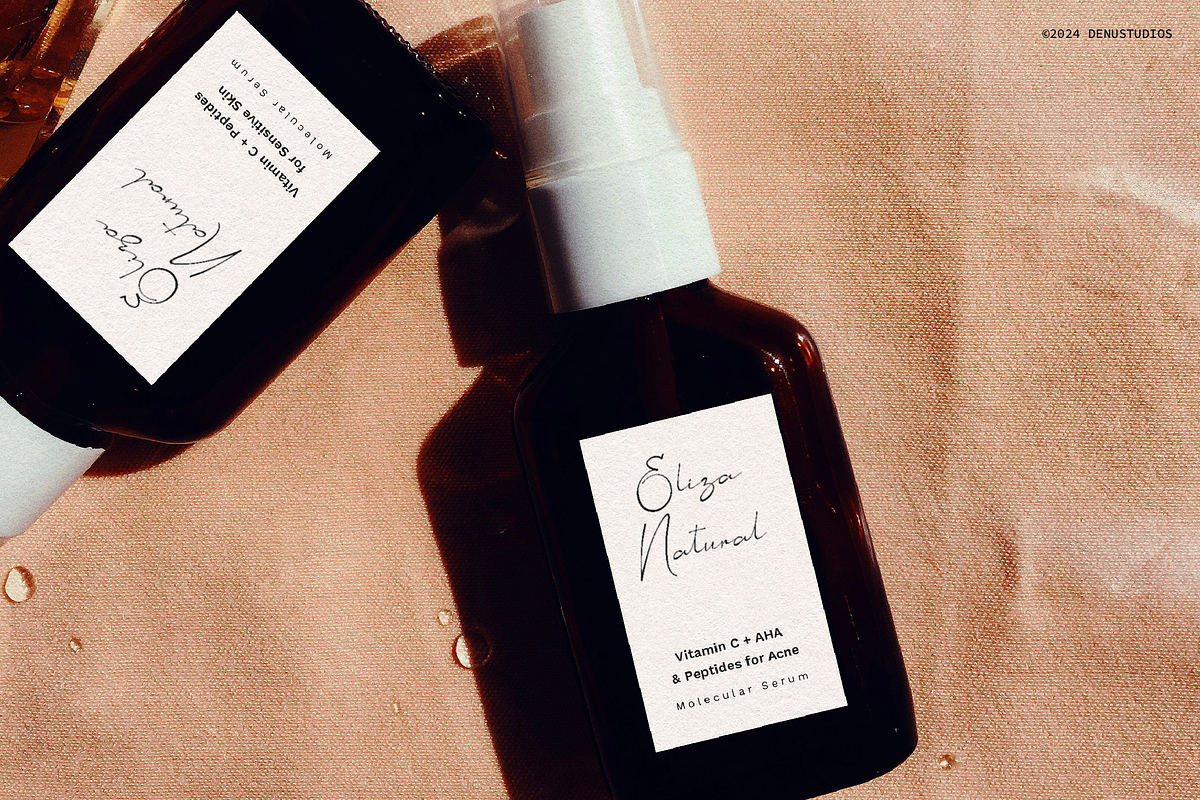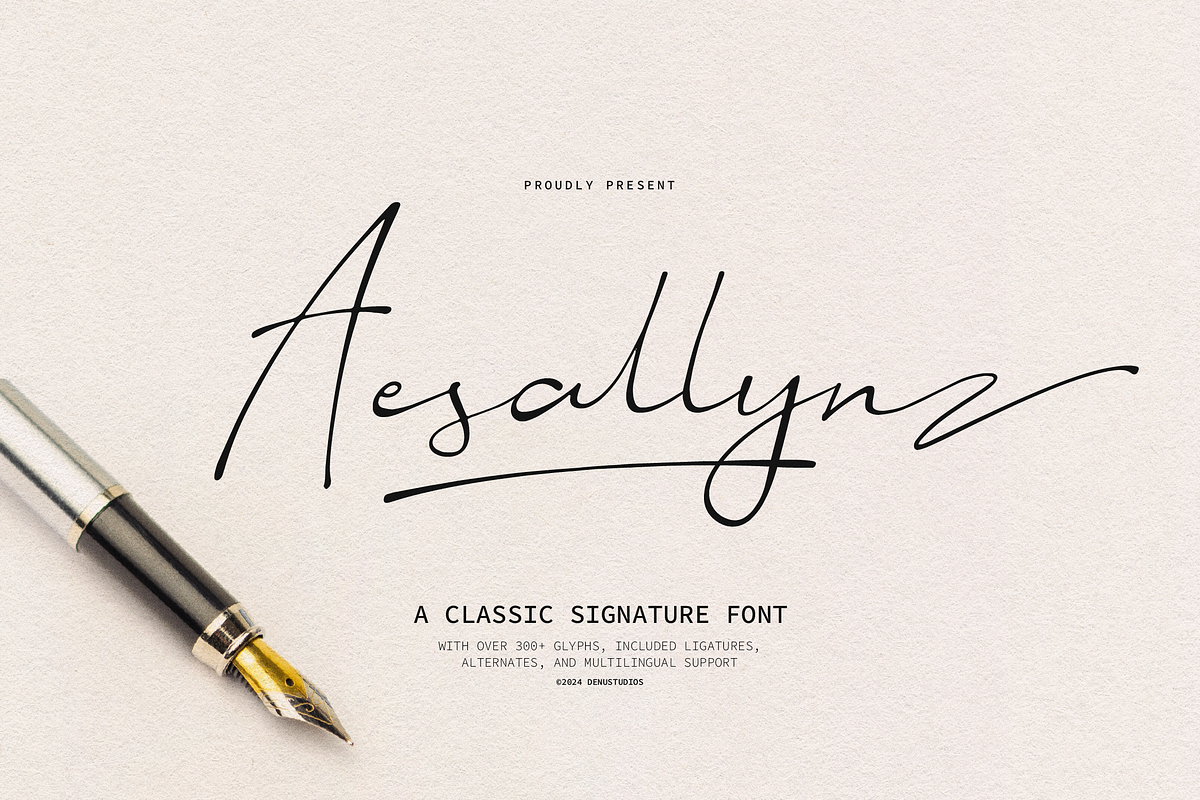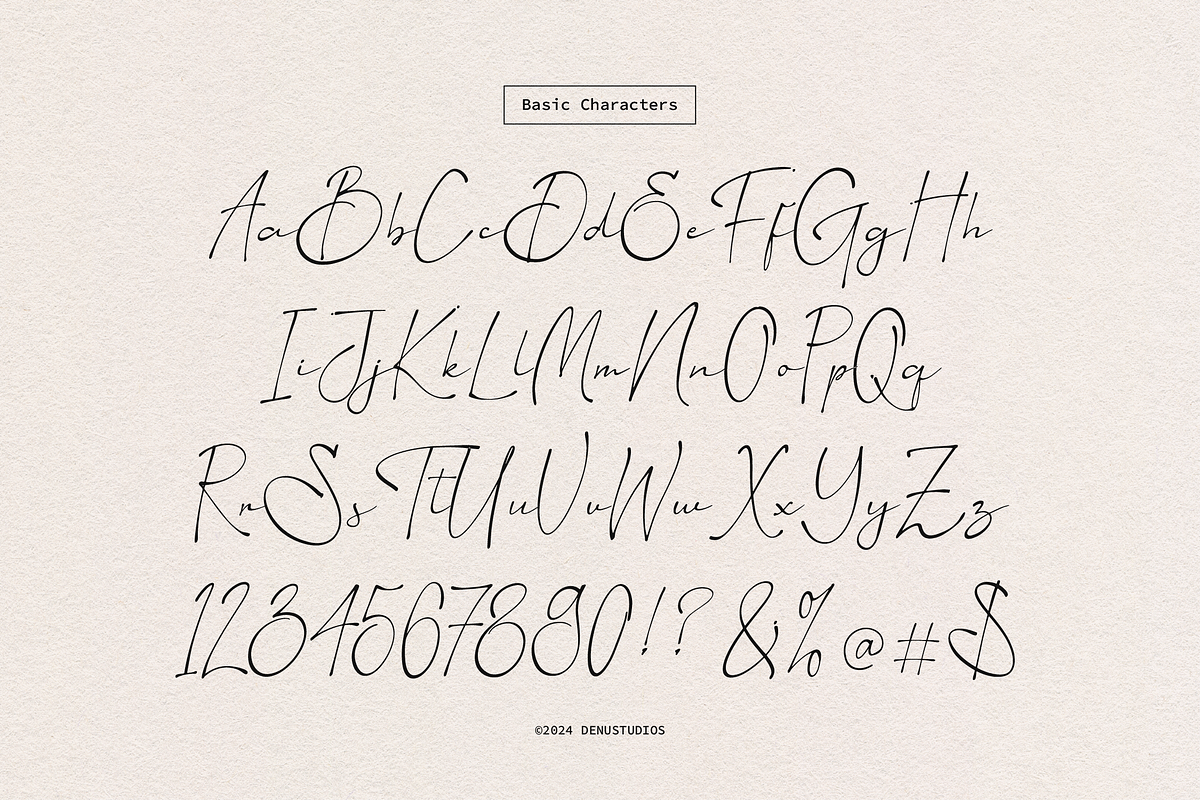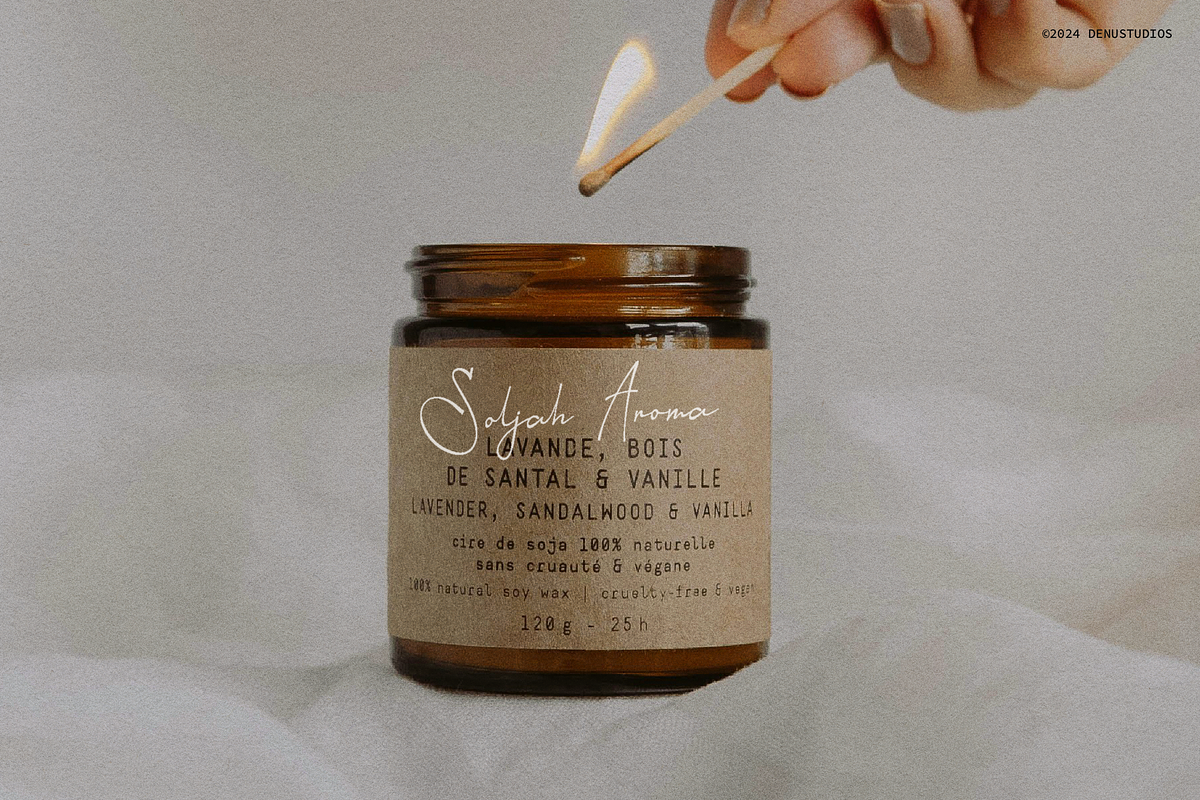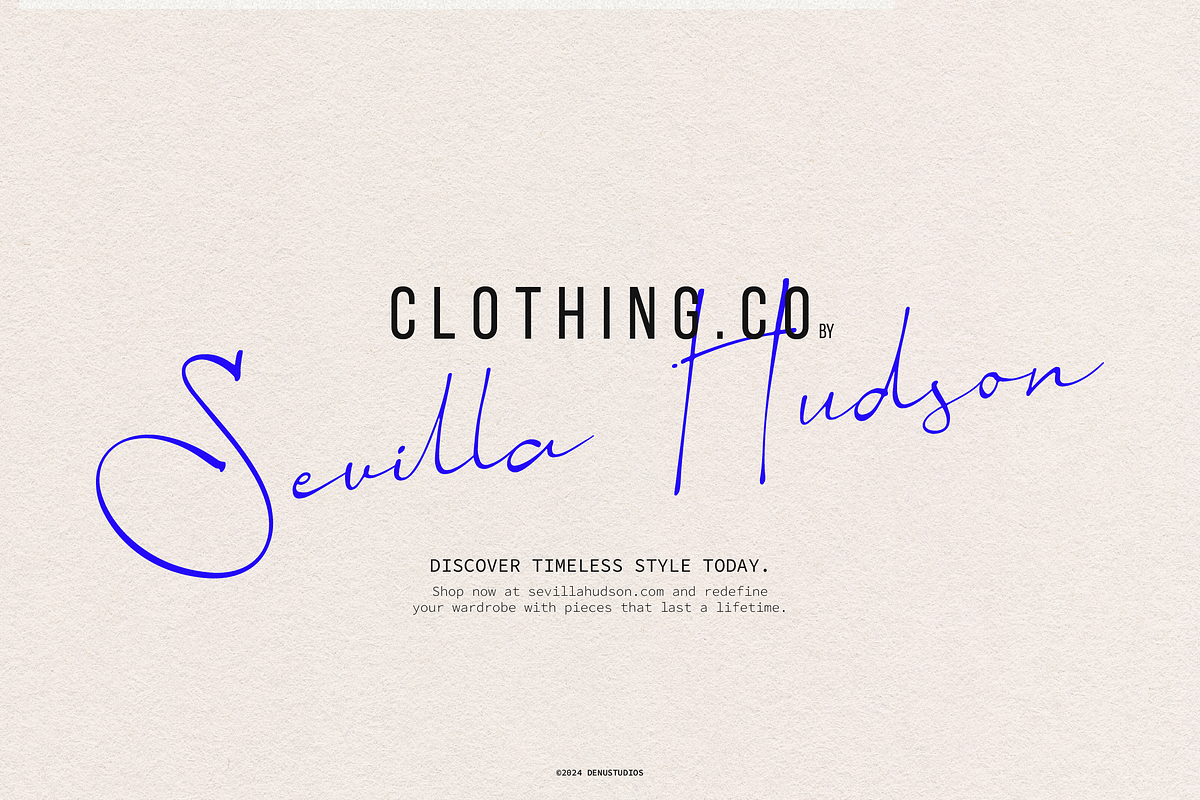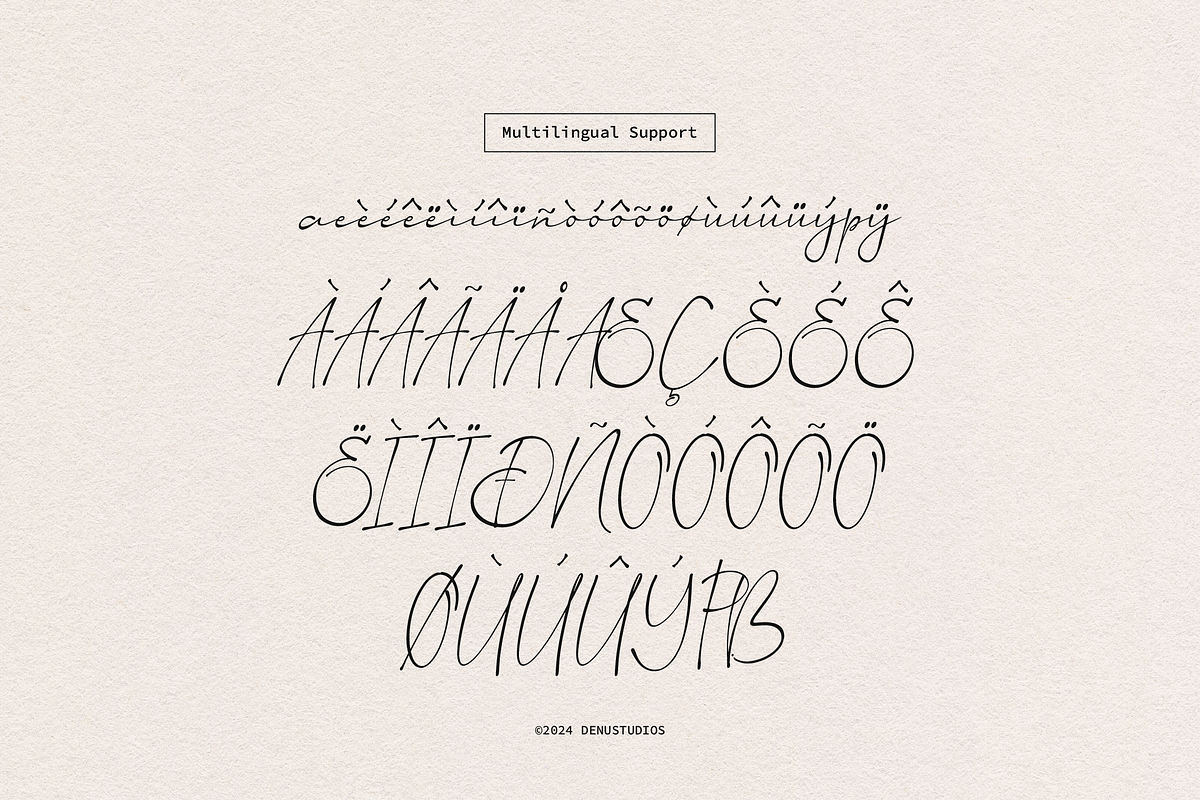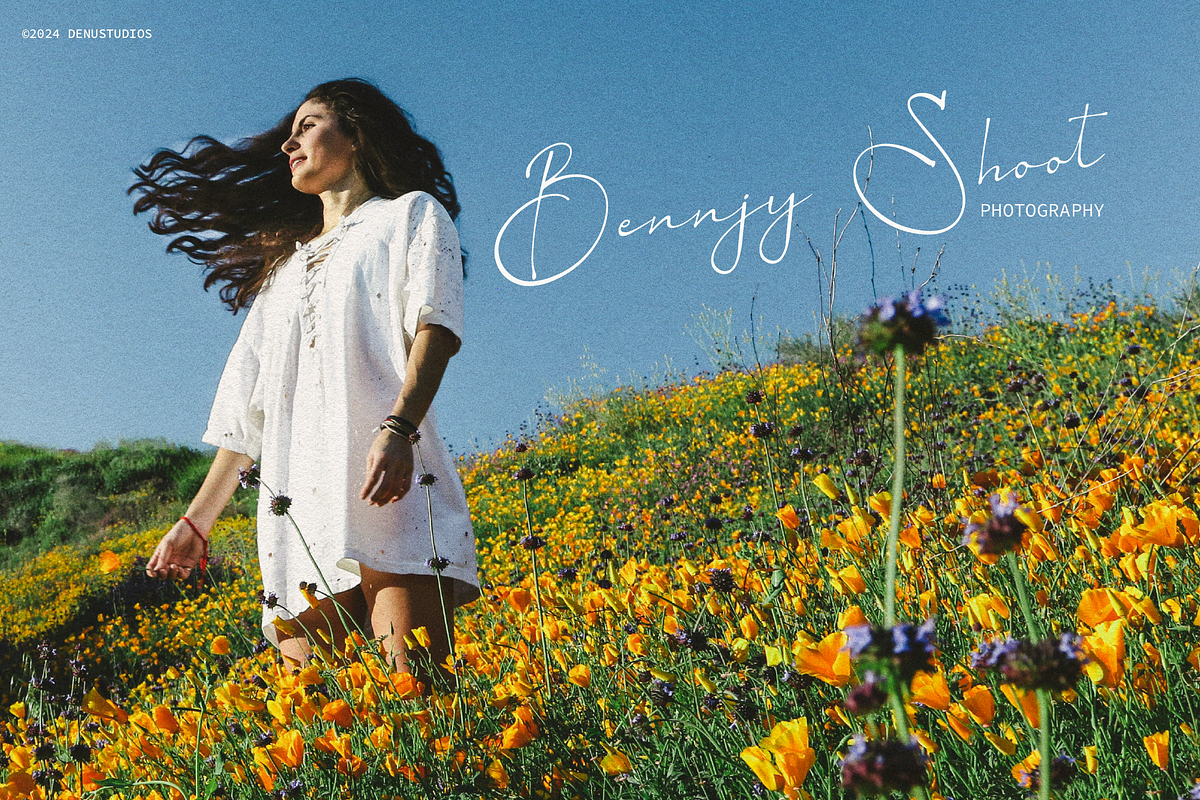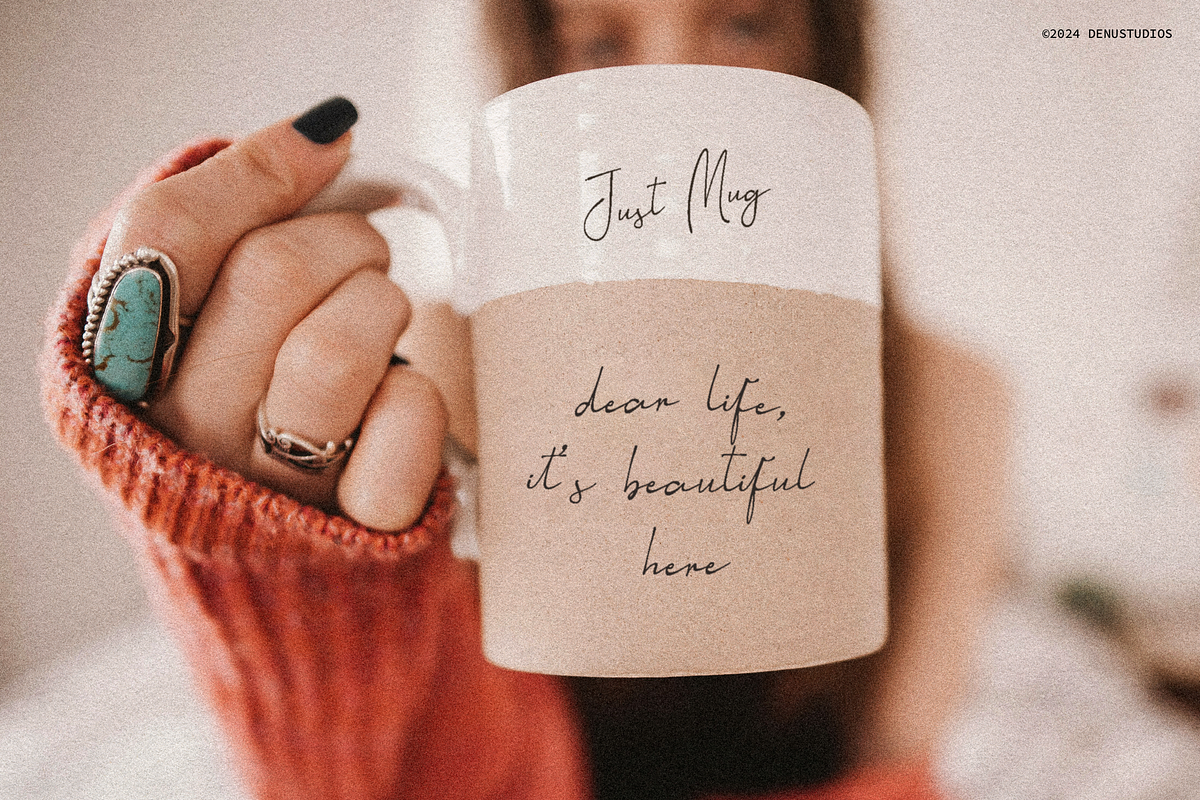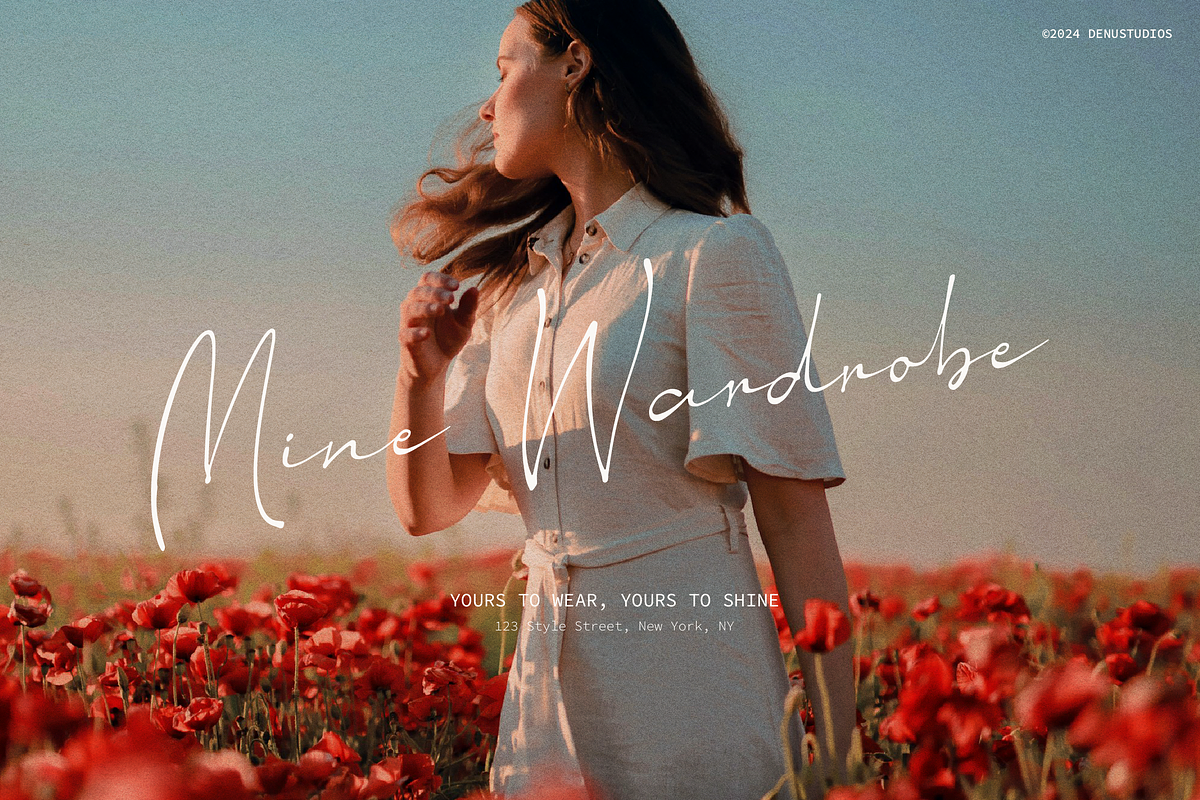
Aesallyn | Classic Signature Font
Aesallyn | Classic Signature Font, from Denustudios, suitable for any projects such as: logos, branding projects, homeware designs, product packaging, mugs, quotes, posters, shopping bags, t-shirts, book covers, name card, invitation cards, greeting cards, label, photography, watermark, special events, and all your other lovely projects that need a Classic Signature Font taste.